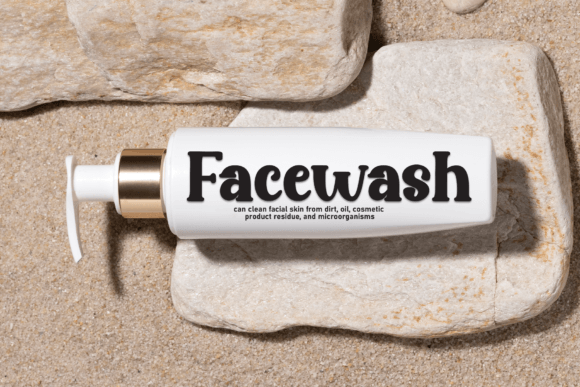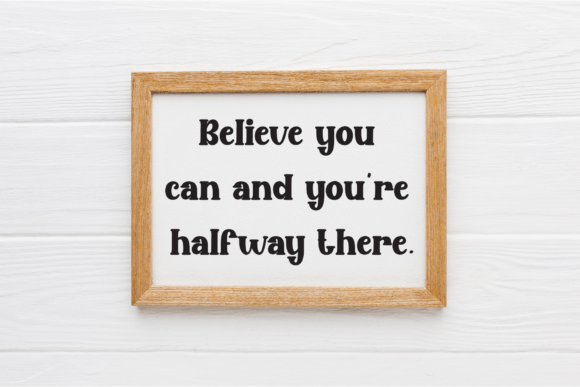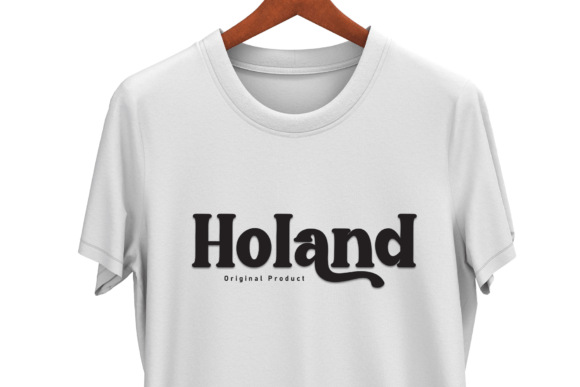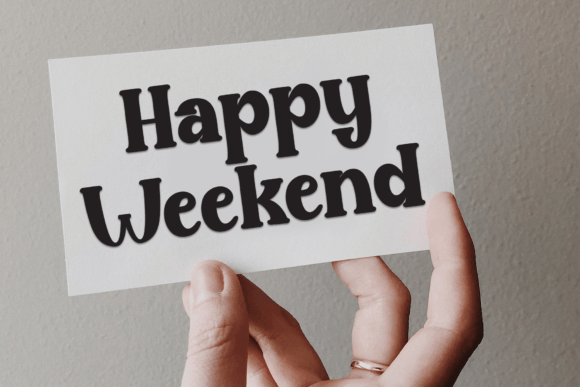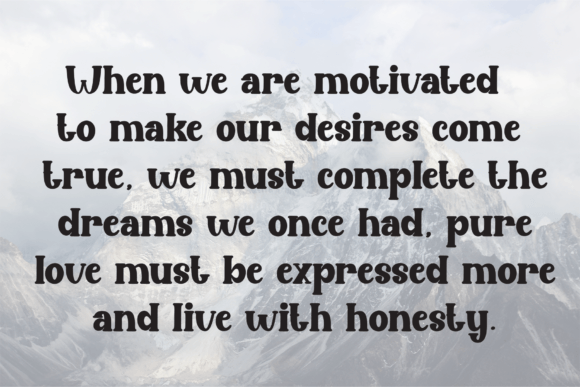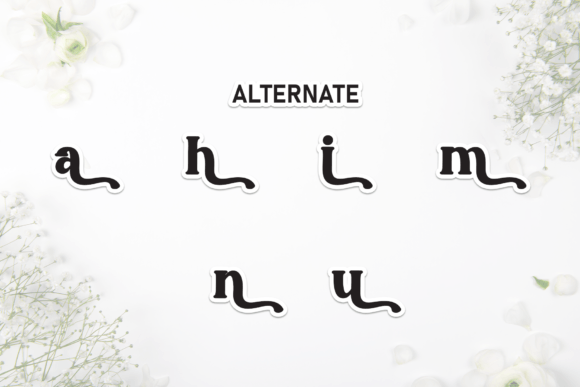
Introducing Bolinda Font: The Sweet and Friendly Handwritten Font for Your Design Needs
Are you looking for a font that can add a touch of sweetness and friendliness to your designs? Look no further than Bolinda Font! This beautiful handwritten font is perfect for creating wedding invitations, cards, and other designs that require a fun and playful touch. In this article, we’ll take a closer look at Bolinda Font, its features, and how you can use it to elevate your designs.
What is Bolinda Font?
Bolinda Font is a sweet and friendly handwritten font that is designed to bring a touch of warmth and personality to your designs. Its cute and fun style makes it ideal for a variety of projects, from wedding invitations and cards to social media graphics and more. Whether you’re a designer, crafter, or DIY enthusiast, Bolinda Font is a great addition to your font collection.
Key Features of Bolinda Font
So, what makes Bolinda Font so special? Here are some of its key features:
- Handwritten style: Bolinda Font has a beautiful handwritten style that gives it a personal and unique touch.
- Cute and fun: This font is designed to be cute and fun, making it perfect for designs that require a playful touch.
- Versatile: Bolinda Font can be used for a variety of projects, from wedding invitations and cards to social media graphics and more.
- Easy to read: Despite its playful style, Bolinda Font is easy to read, making it perfect for designs that require a clear and concise message.
How to Use Bolinda Font in Your Designs
Now that we’ve covered the features of Bolinda Font, let’s talk about how you can use it in your designs. Here are some ideas to get you started:
- Wedding invitations: Bolinda Font is perfect for creating beautiful and unique wedding invitations that set the tone for the big day.
- Cards: Whether you’re creating birthday cards, thank you cards, or holiday cards, Bolinda Font is a great choice.
- Social media graphics: Add a touch of personality to your social media graphics with Bolinda Font.
- DIY projects: Bolinda Font is also great for DIY projects, such as scrapbooking, journaling, and more.
Tips for Using Bolinda Font Effectively
Here are some tips for using Bolinda Font effectively in your designs:
- Pair it with other fonts: Bolinda Font looks great when paired with other fonts, such as serif or sans-serif fonts.
- Use it in moderation: While Bolinda Font is cute and fun, it’s best to use it in moderation to avoid overwhelming your design.
- Experiment with colors: Bolinda Font looks great in a variety of colors, so don’t be afraid to experiment and find the perfect color for your design.
In conclusion, Bolinda Font is a sweet and friendly handwritten font that is perfect for adding a touch of personality to your designs. Its cute and fun style makes it ideal for a variety of projects, from wedding invitations and cards to social media graphics and more. With its versatility, ease of use, and beautiful style, Bolinda Font is a great addition to any designer’s or crafter’s font collection.